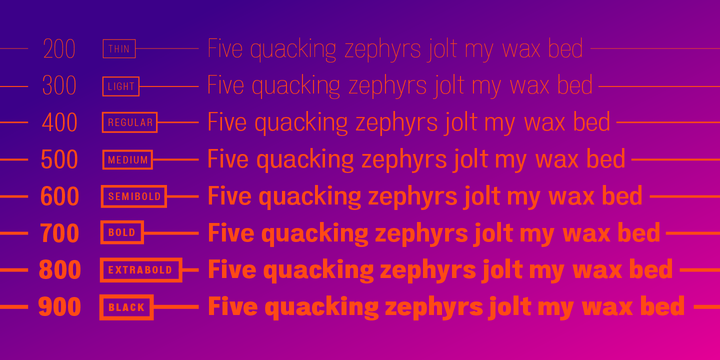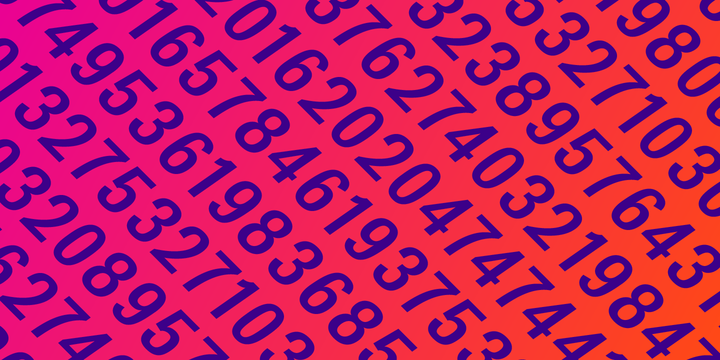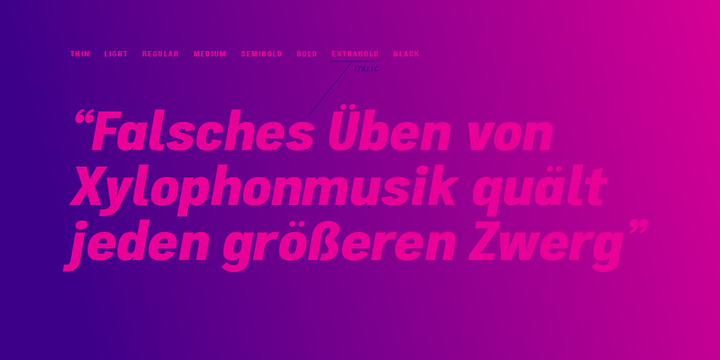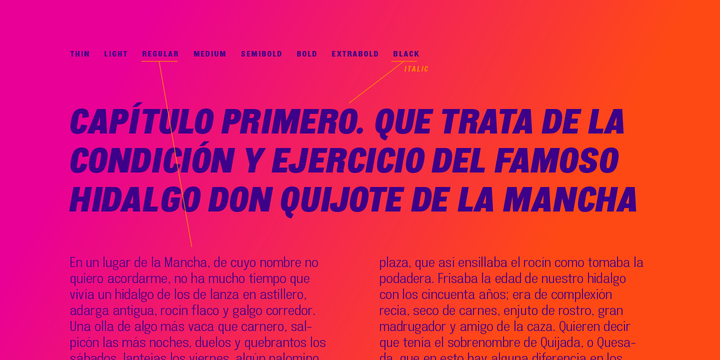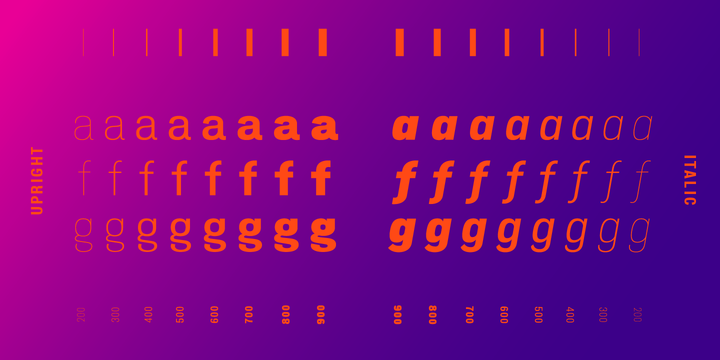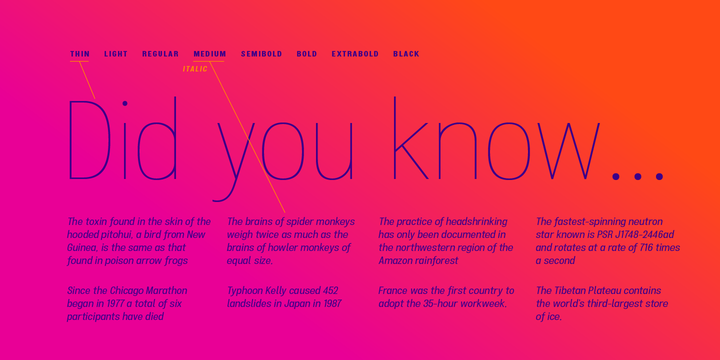
Atiga Font Family
Atiga is a workhorse sans serif family with subtly distinct forms. The large number of weights and corresponding italics allow for usage at almost any size, in print and on screen.